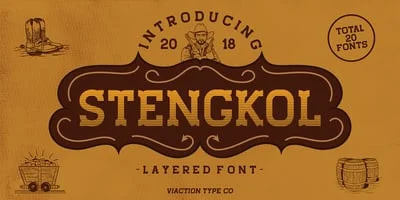
Stengkol Font
Stengkol Font is perfect for bold industrial branding, heavy machinery marketing, steel construction communications, robust manufacturing identities, metalworking shop signage, industrial equipment promotions, structural engineering presentations, and powerful commercial applications. This formidable typeface brings industrial strength, metallic durability, and structural sophistication to any project requiring typography that communicates uncompromising power, engineering excellence, and the robust character of heavy industry operations.
What makes Stengkol Font exciting is its remarkable ability to embody the essence of steel and industrial strength through letterforms that seem forged from solid metal and engineered for maximum structural integrity and industrial performance. The font features powerfully constructed character shapes with structural proportions, reinforced spacing that suggests engineering precision, and metallic details that evoke the durability of steel construction and the uncompromising strength of industrial materials. Its industrial character represents the backbone of modern infrastructure and manufacturing excellence, making it perfect for brands that want to communicate strength, reliability, and the professional competence of heavy industry and structural engineering.
The Stengkol Font family typically includes regular and bold weights with structurally designed uppercase and lowercase letters, industrial numerals, and comprehensive punctuation marks that maintain the font's metallic strength and engineering appeal. The design emphasizes structural integrity while ensuring practical readability for contemporary industrial and manufacturing communication applications that require both power and professional clarity.
Whether you're creating industrial brand identities or developing heavy machinery marketing materials, Stengkol Font provides unmatched industrial authenticity and structural appeal. This typeface excels in applications where its powerful character can communicate engineering excellence and industrial competence. Its metallic aesthetic makes it particularly effective for construction companies, manufacturing firms, and industrial brands that want to associate with strength and structural reliability. The font's formidable presence helps establish industrial credibility while ensuring memorable recognition through typography that honors the essential foundation of Stengkol Font modern industry and structural engineering.